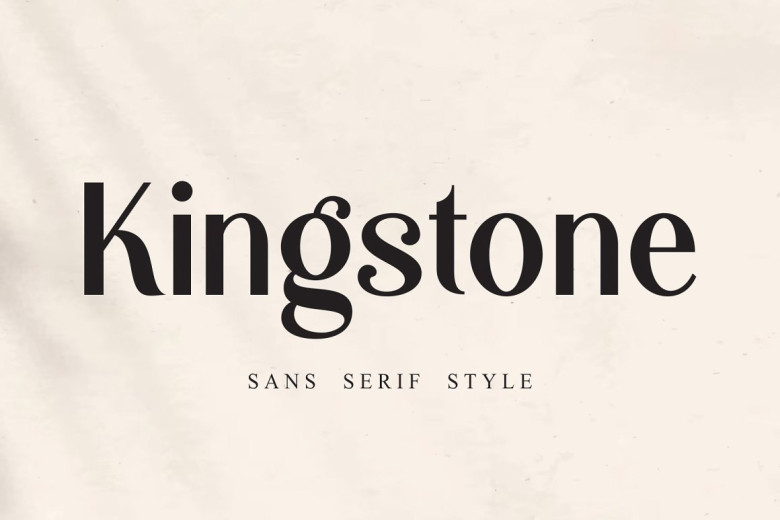
Kingstone Sans Font
“Kingstone Sans” is an exquisite font replete with power, elegance and timeless appeal that will bring power, sophistication and style to your designs. Let “Kingstone Sans” rule your creations and elevate them to new levels of sophistication!
“Kingstone Sans” stands out with its well-balanced letterforms and sturdy serifs to give an authoritative appearance, perfect for luxury packaging, editorial designs, or branding projects. Every character in “Kingstone Sans” was carefully created in order to portray grandeur and sophistication – you are sure to impress your target audience with its majestic appeal!
This font is the ideal solution for logos, headlines and promotional materials that aim to make an impressionful first impression on readers. Discover its gracefulness and power! Elevate the aesthetic of your designs while captivating audiences – don’t miss this opportunity to add grandeur!